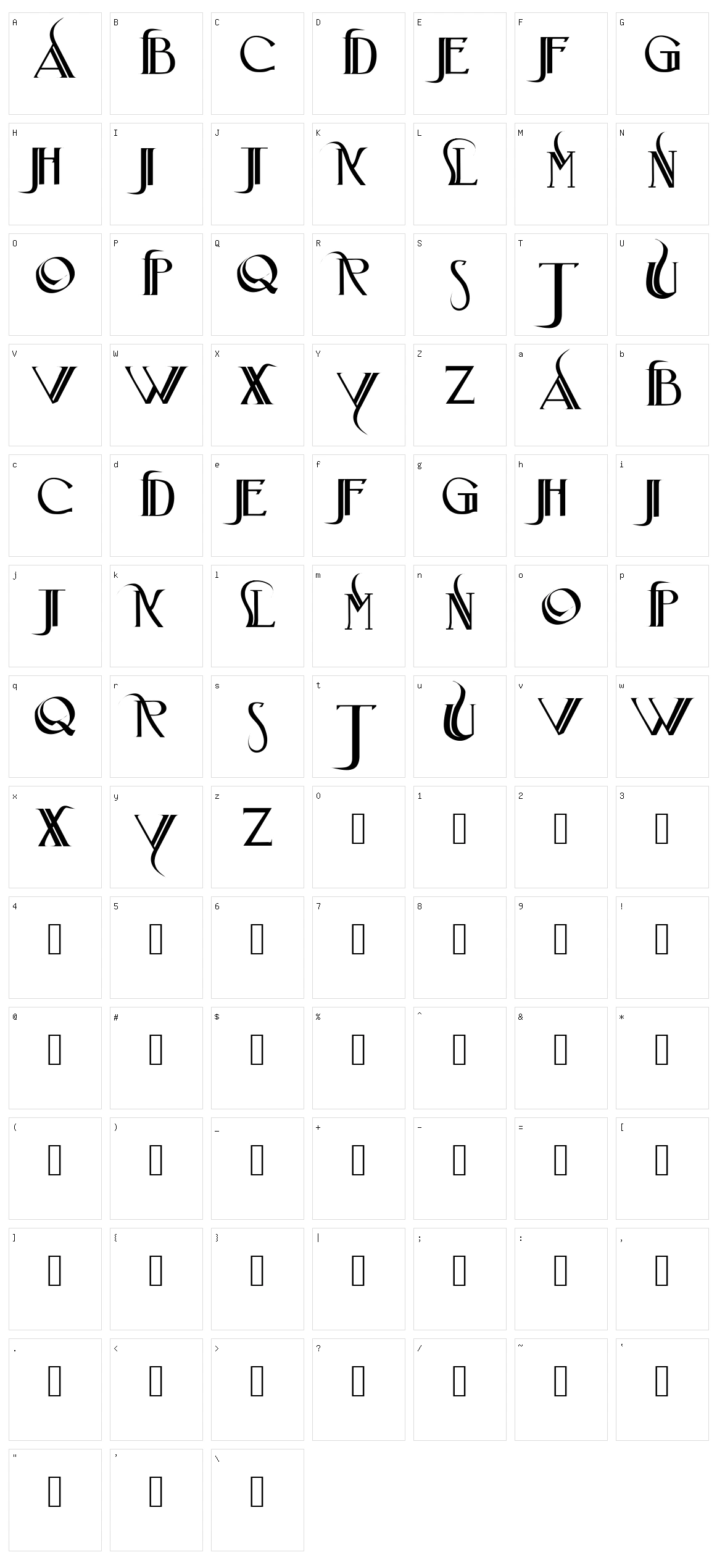
The free font Iniciatica is carefully designed by Manuel Ramos, showcasing a thoughtful balance of creativity and usability and belongs to the Gothic font family. When you download the ZIP file, it contains only 12.49 KB of font files, making it lightweight and quick to download. Please review the license details below to understand permitted usage and distribution rights. If license information is not available, we recommend using this font for personal projects only or contacting the author directly for commercial usage permissions.